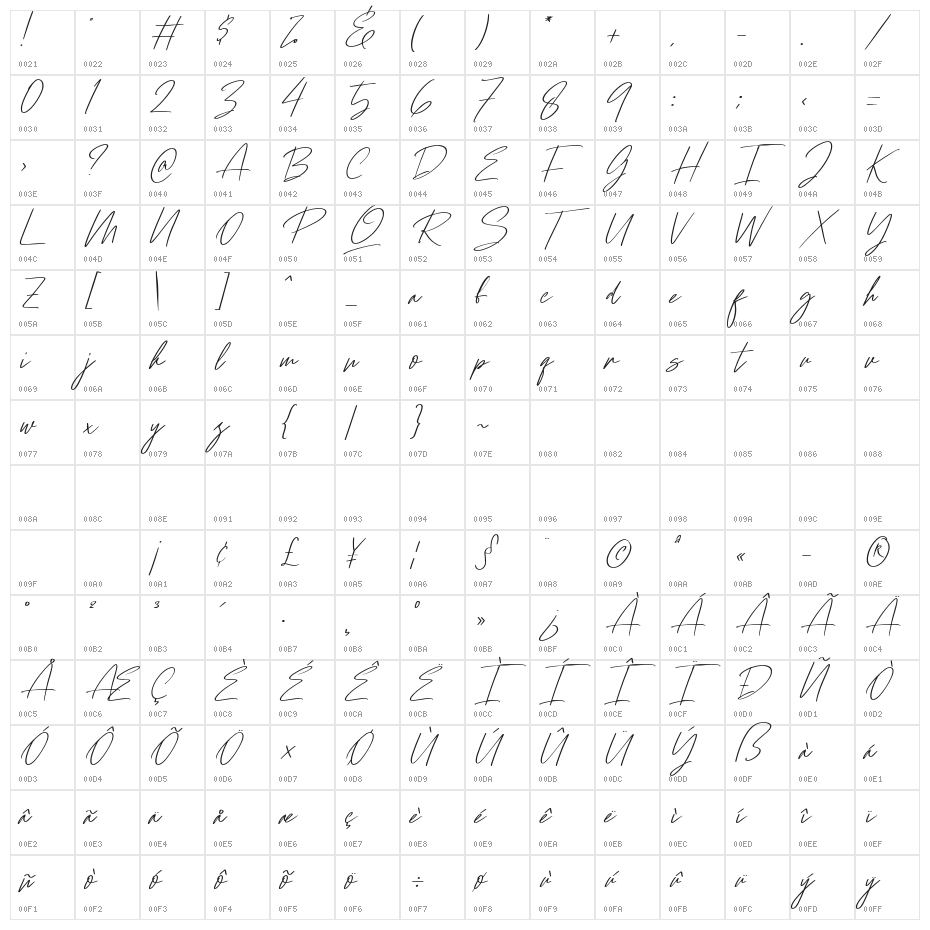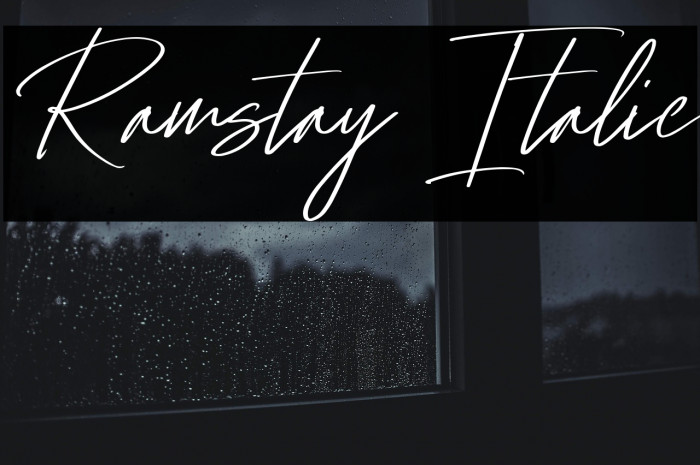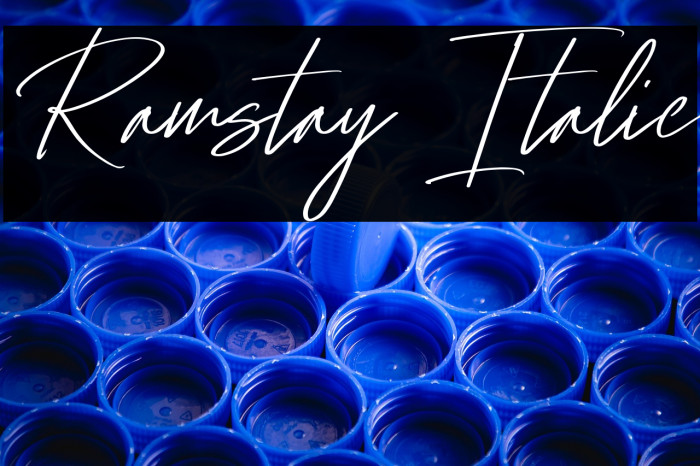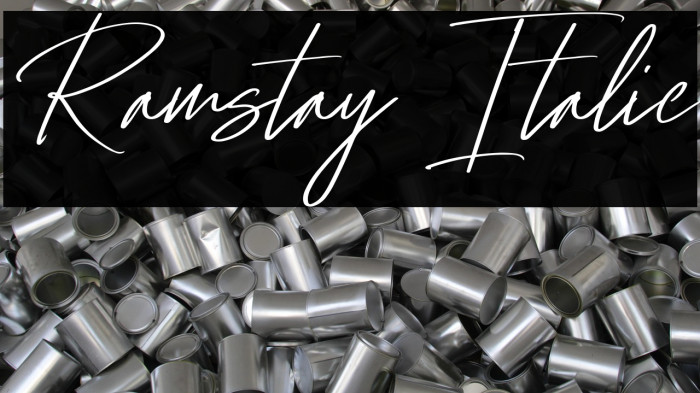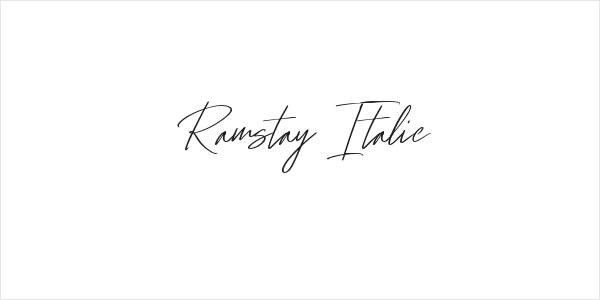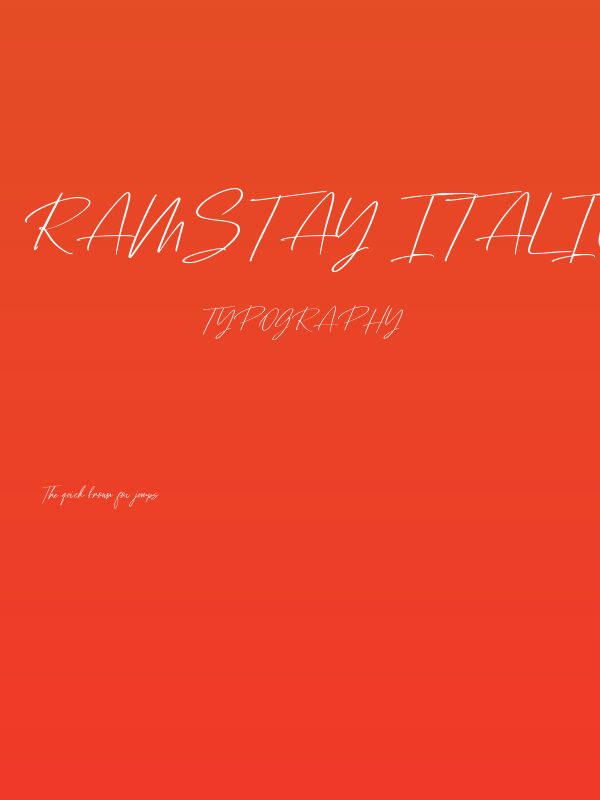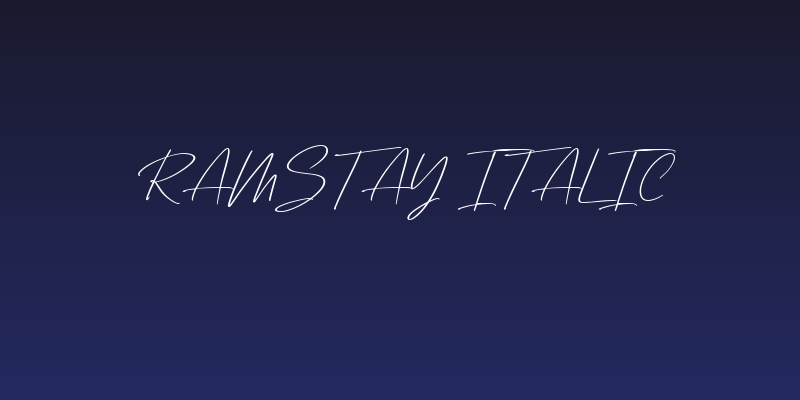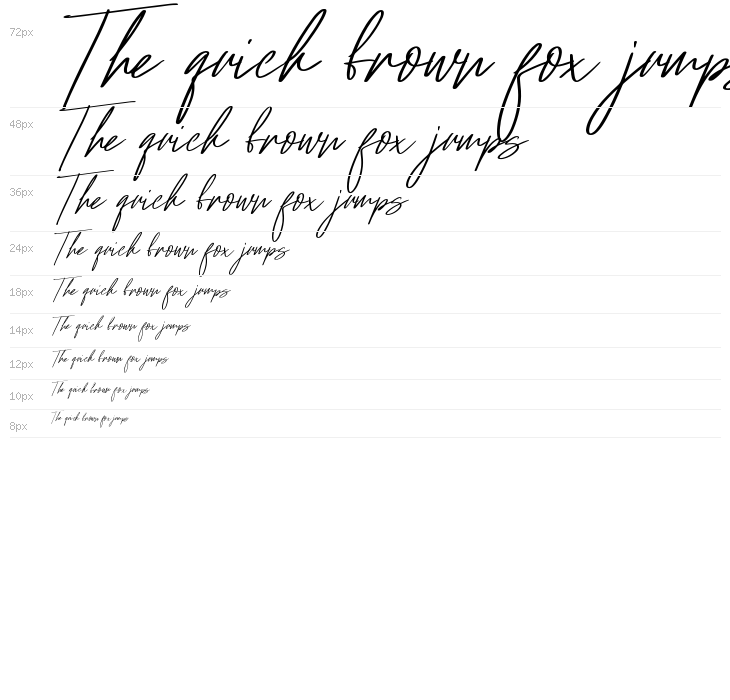
Ramstay Italic Font
Ramstay Italic Description
This font features an elegant and fluid script style, characterized by its smooth, flowing strokes and a natural handwritten appearance. The letters are connected, giving it a cohesive and continuous look, which is ideal for creating a personal and intimate feel. The uppercase letters are slightly more elaborate, with extended loops and curves, while the lowercase letters maintain a consistent flow. The numbers and special characters complement the overall style, maintaining the same fluidity and elegance. This font is perfect for projects that require a touch of sophistication and personality.
| Overall Style | Elegant, Handwritten |